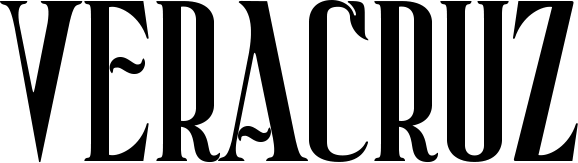
What makes this Western font more desirable and specific for designing your typography is the appearance of its letters, which are tall, bold, and have a serif that can imbue credibility and power to the audience.
Well, for incorporating a reliable traditional image in your magazines, branding, headlines, packaging, website header, and many other creative projects, be inclined to this retro Grewmoon font to be more striking than before.